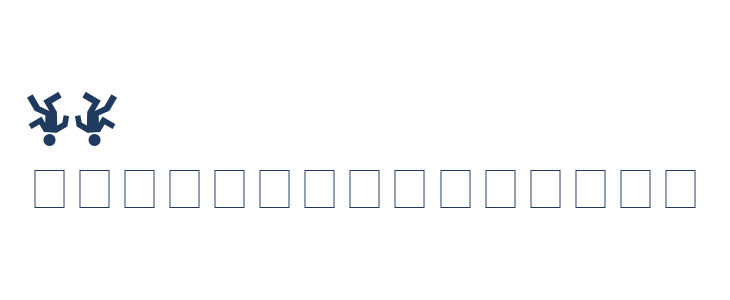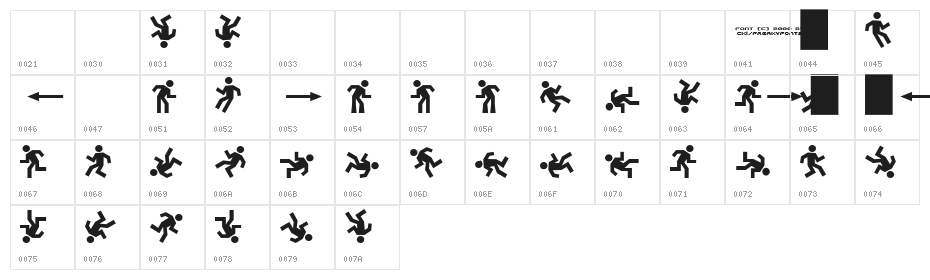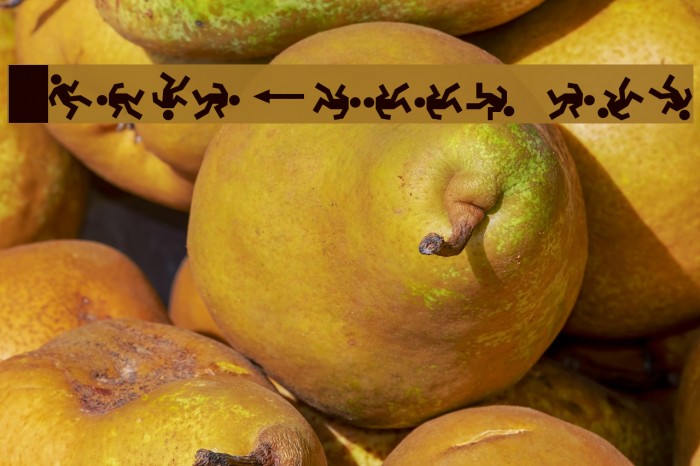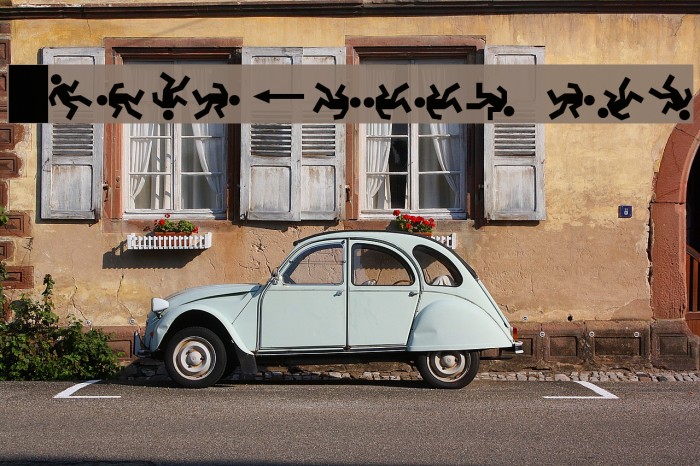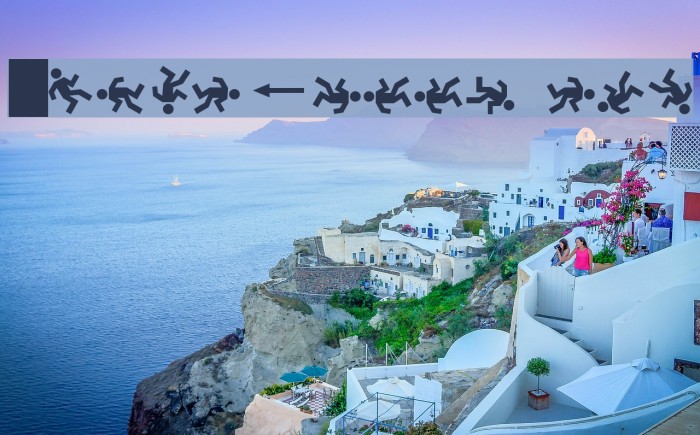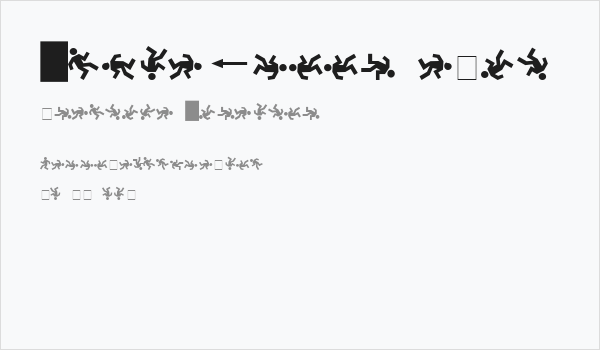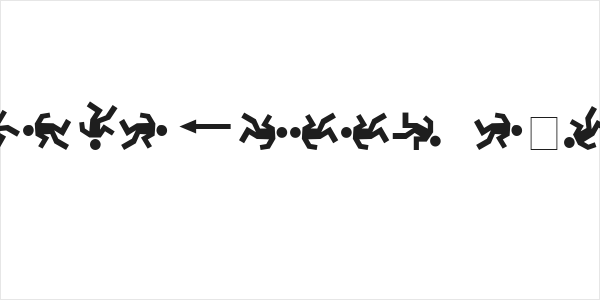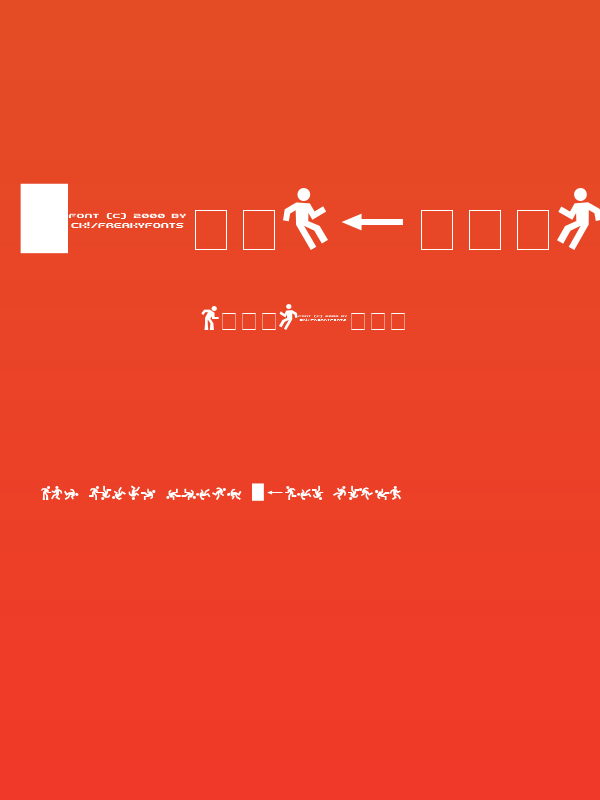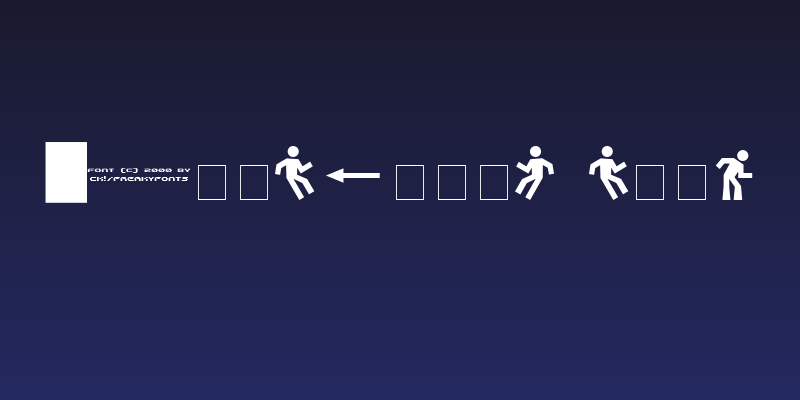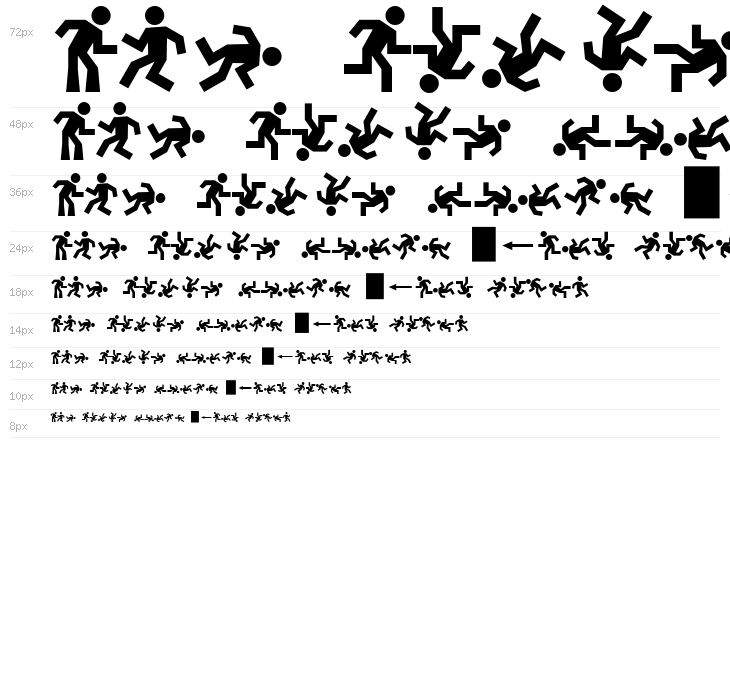
DanceFloor eXit Font
DanceFloor eXit Description
This font is a playful and dynamic set of pictograms that depict various stick figures in motion, suggesting dance or movement. The characters are designed with bold, solid black shapes, emphasizing action and direction. Each figure is stylized with simple geometric forms, such as circles for heads and rectangles for limbs, creating a minimalist yet expressive style. The font includes a variety of poses and actions, such as running, jumping, and interacting with doors or arrows, which adds a narrative element to the design. This unique approach makes it stand out as a decorative and thematic font, ideal for creative projects.
Use CaseLogos, Posters, Creative Advertisements
Proposed ProjectsThis font is perfect for event posters, dance studio branding, creative advertisements, or any project that requires a playful and energetic visual element.